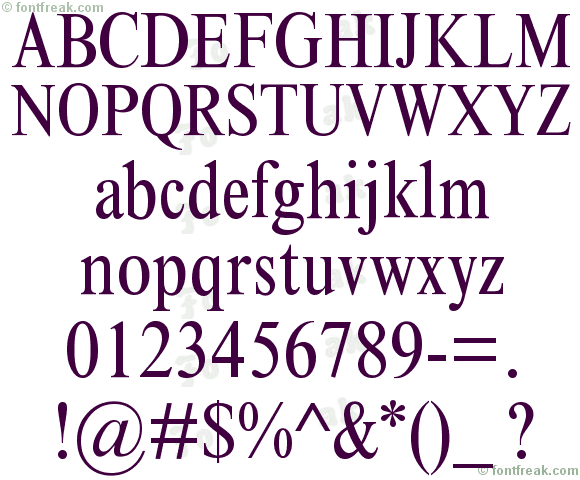
ThamesCondensed Regular
Thames Condensed by Rubicon Computer Labs is a striking serif font that encapsulates a blend of elegance and modernity. Released in 1995, this typeface features a condensed design that makes it ideal for various applications where space is at a premium. The stroke weight is balanced, showcasing a subtle contrast that enhances readability while maintaining a sophisticated look. The letters are tightly spaced, promoting a clean and compact appearance, making Thames Condensed a versatile choice for numerous design projects.
This font shines in specific use cases, such as restaurant menus where a refined yet approachable aesthetic is desired. Its unique structure also makes it perfect for movie posters, where bold titles need to command attention without overwhelming the viewer. Additionally, Thames Condensed is an excellent option for branding materials, such as business cards and logos, where a concise and impactful presentation is crucial. Wedding invitations also benefit from its elegant appearance, allowing couples to convey their style with a touch of class.
What sets the Thames Condensed font apart is its ability to maintain legibility while offering a distinctive visual flair. This font not only elevates the aesthetics of any design project but also provides a sense of professionalism that can enhance branding efforts. For those interested in enhancing their typography toolkit, Thames Condensed font free download is an opportunity to experiment with this exceptional typeface and discover its potential in bringing creative visions to life.